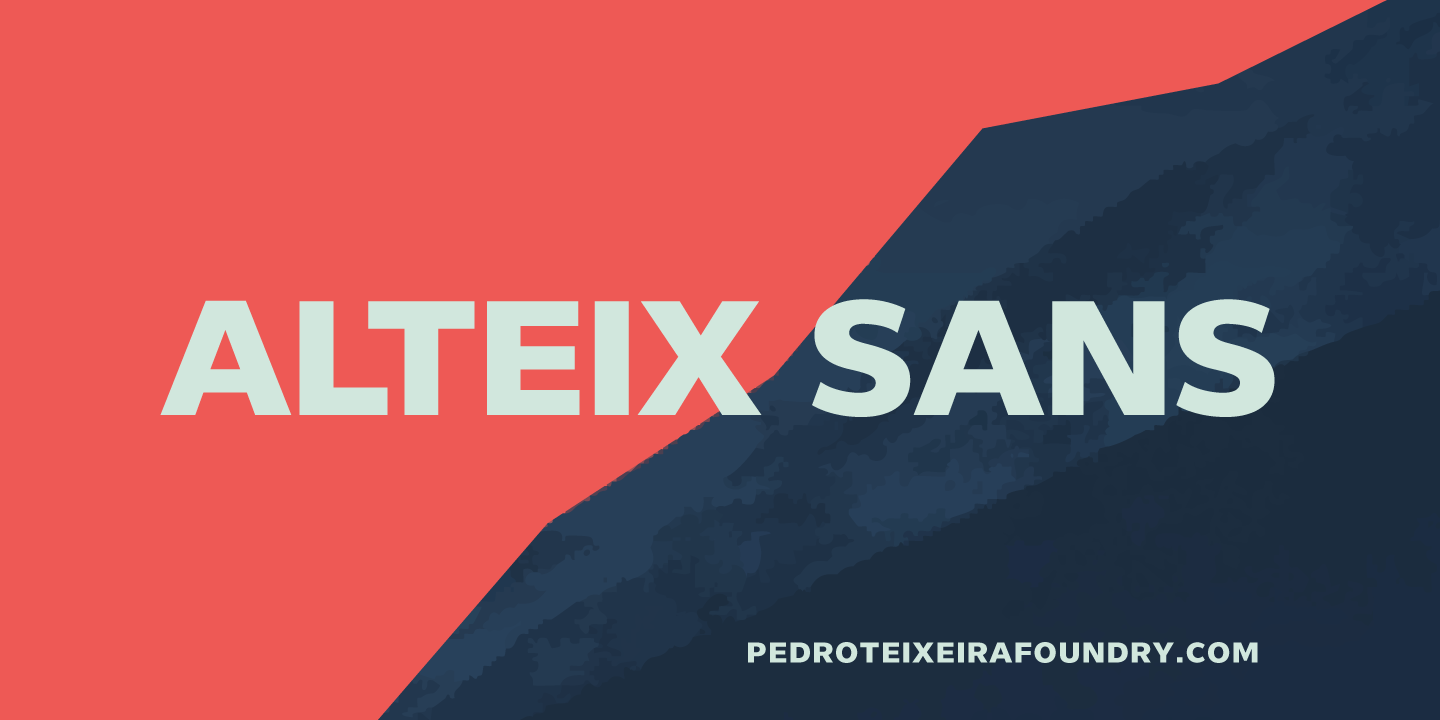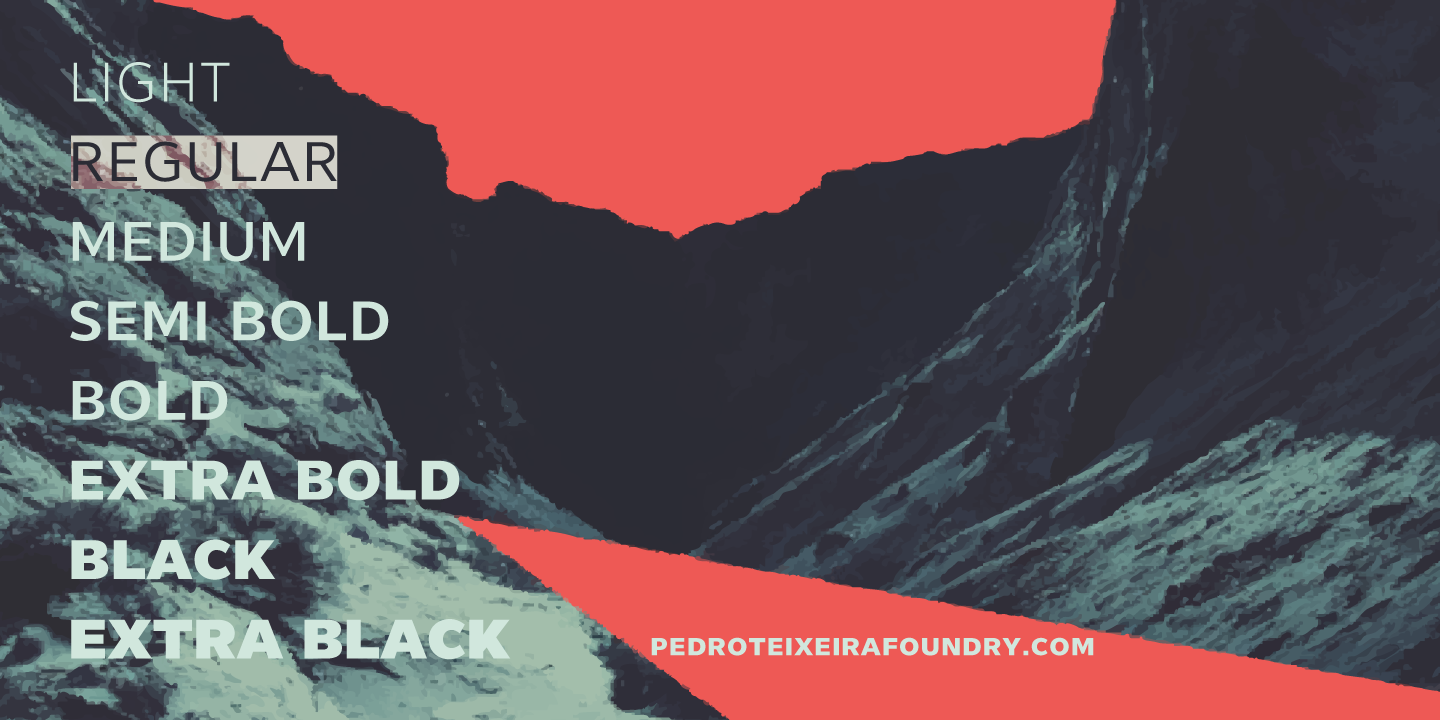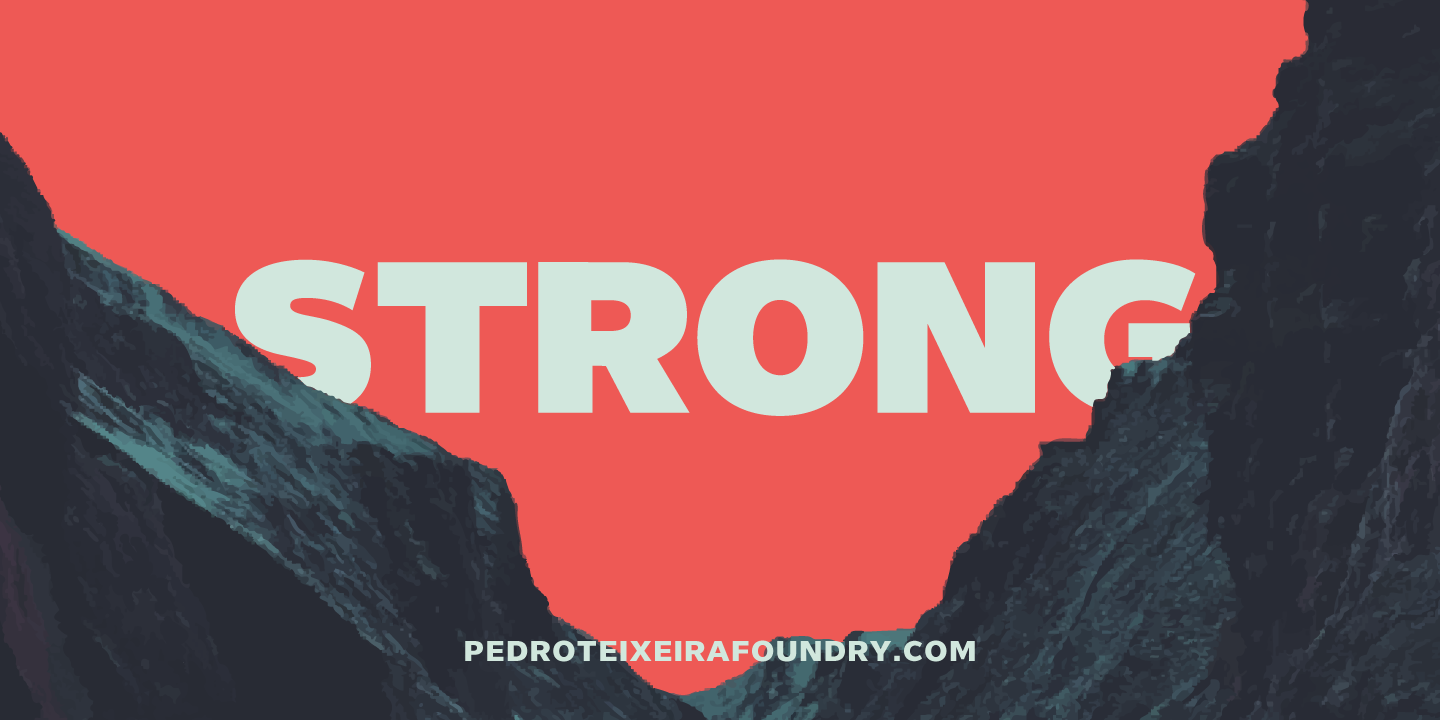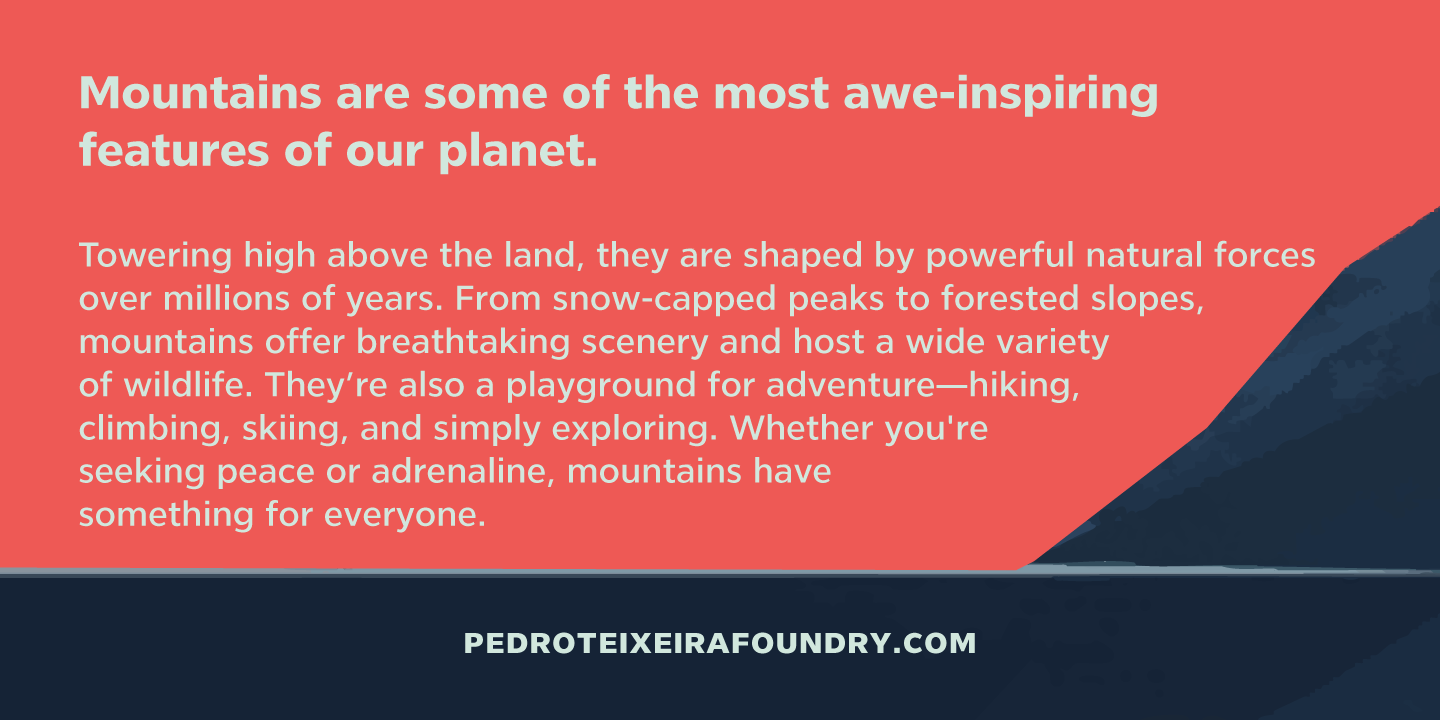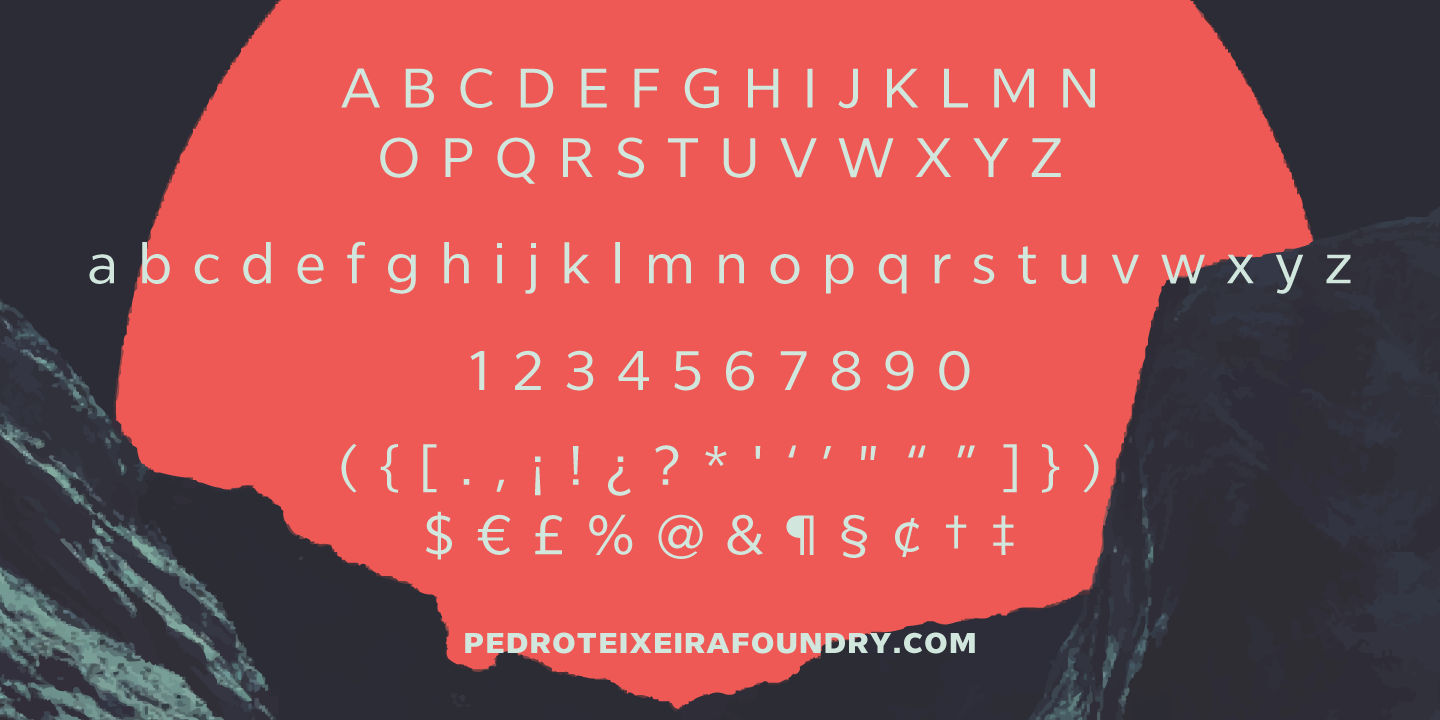
Alteix Sans Family
Alteix Sans Family is a contemporary sans serif type family created by Pedro Teixeira Foundry for designers, brands, studios, and creative teams who need flexibility, clarity, and consistency across multiple applications. Developed for modern visual communication, it performs confidently in branding, editorial systems, websites, packaging, presentations, and digital products.
This professional sans serif family is designed to support strong typography in real-world projects. Its clean construction, balanced proportions, and versatile weight range make it suitable for both expressive and functional use. Whether you are designing a visual identity, creating a digital platform, building a campaign system, or refining editorial layouts, Alteix Sans Family offers a reliable typographic foundation with a contemporary voice.
Included Styles
Alteix Sans Family includes a broad range of weights for flexible typographic systems:
- Alteix Sans Light
- Alteix Sans Regular
- Alteix Sans Medium
- Alteix Sans SemiBold
- Alteix Sans Bold
- Alteix Sans ExtraBold
- Alteix Sans Black
- Alteix Sans ExtraBlack
Why Choose Alteix Sans Family
This type family was designed for professional use across print and screen. It combines a contemporary sans serif appearance with practical usability, making it a valuable choice for branding designers, art directors, agencies, publishers, and digital teams. The family is intended to feel clear, modern, and dependable while remaining flexible enough for a wide range of creative and commercial applications.
- Contemporary sans serif family for professional design work
- Wide weight range from Light to Extra Black
- Suitable for branding, editorial, web, and packaging
- Designed for strong readability and visual consistency
- Useful for both print and digital environments
- Created by Pedro Teixeira Foundry
Best Uses for Alteix Sans Family
This sans serif family works especially well in brand identity systems, editorial layouts, websites, packaging, presentations, campaigns, portfolios, and social content. It is a strong choice for projects that require a modern, versatile, and professional typographic tone. Designers looking for a contemporary sans serif family with multiple weights and flexibility across touchpoints will find it effective for both corporate and creative contexts.
Ideal for:
- Brand identity and logo support typography
- Editorial design and publishing
- Website headings and interface typography
- Packaging and product communication
- Presentations, lookbooks, and campaign design
Designed by Pedro Teixeira Foundry
If you need a versatile sans serif family for professional design projects, this type family offers a strong balance of usability, clarity, and character. It is designed to help brands and creatives communicate with precision across identity, editorial, digital, and commercial applications.